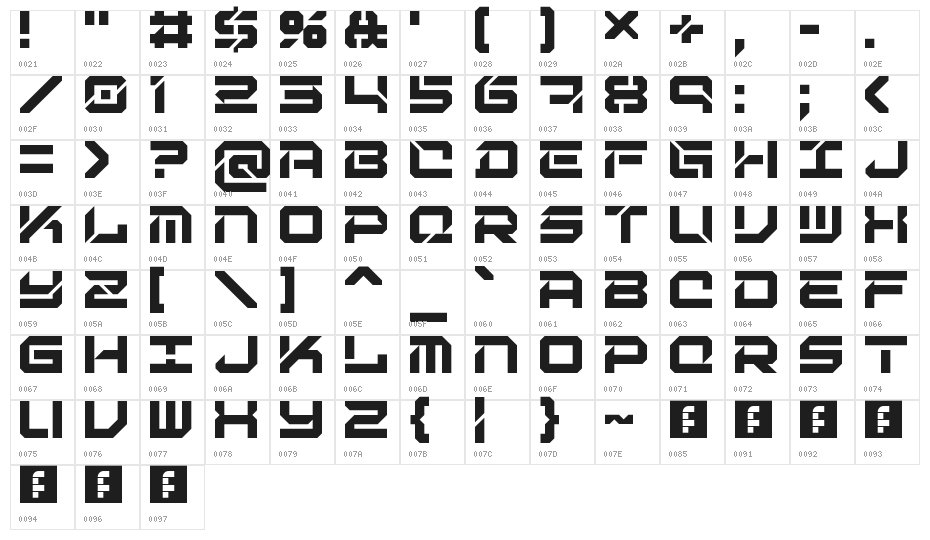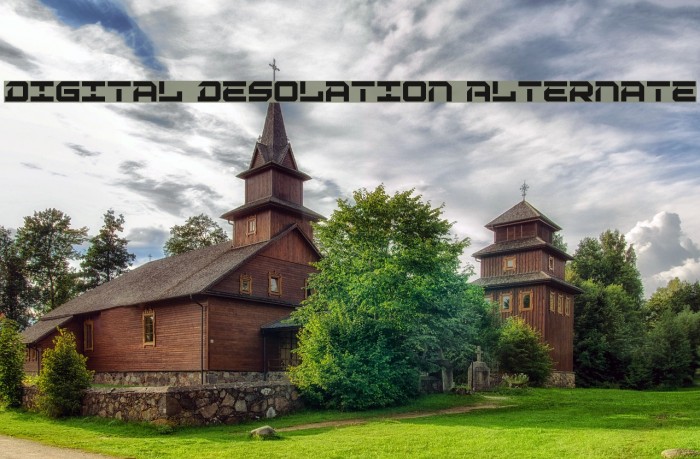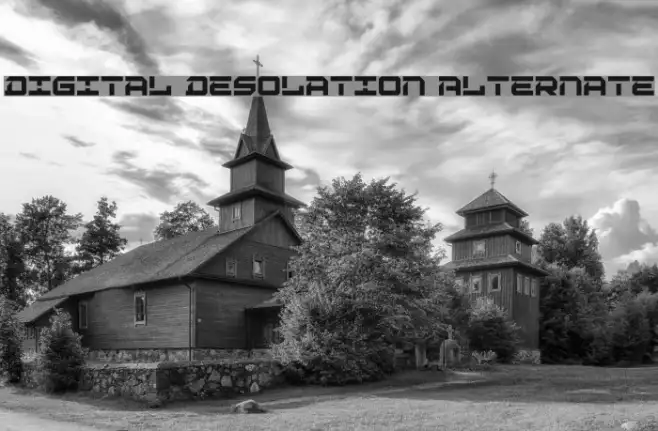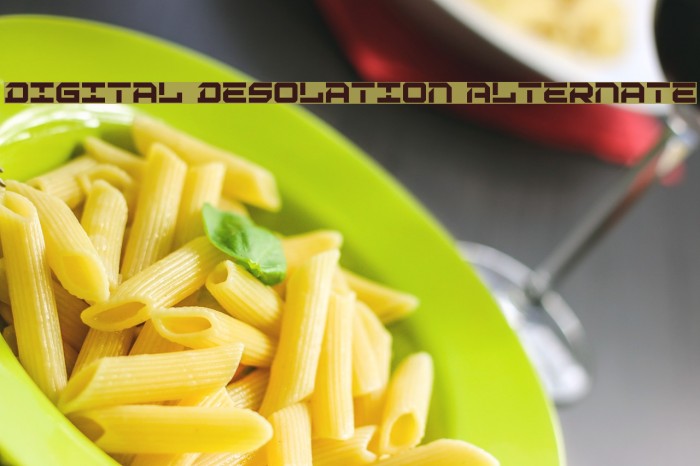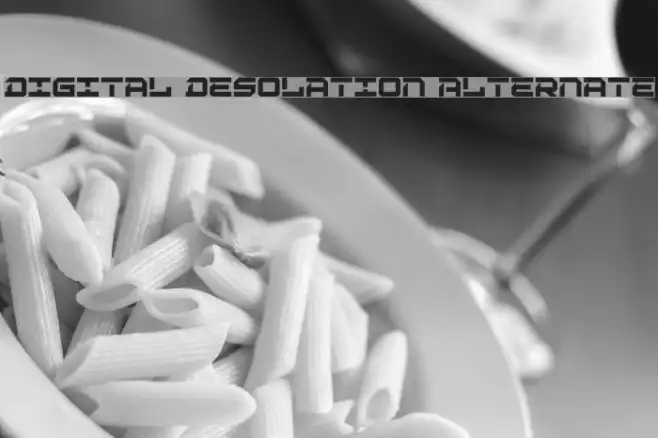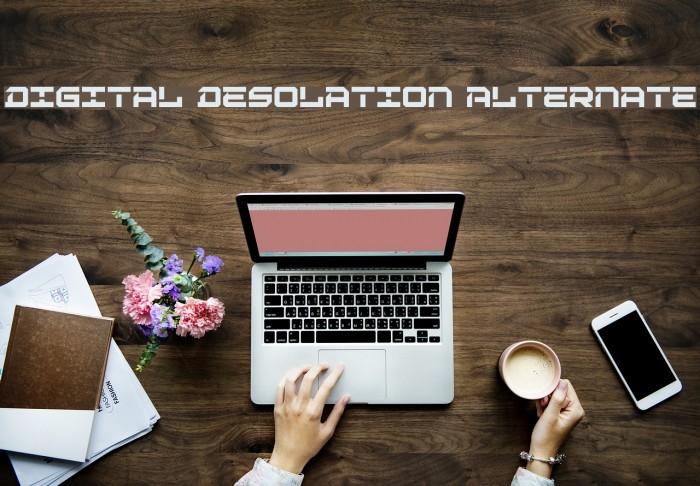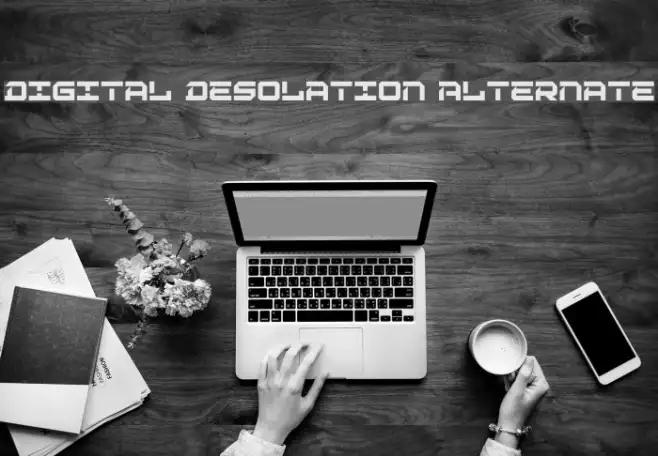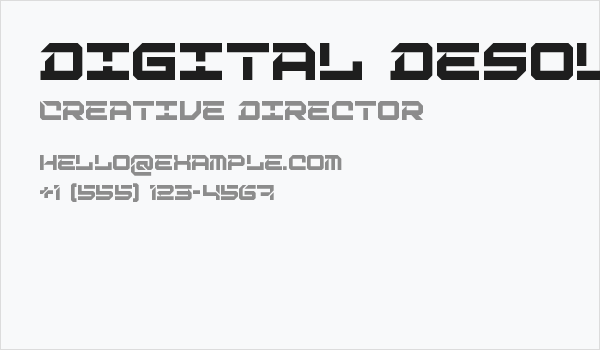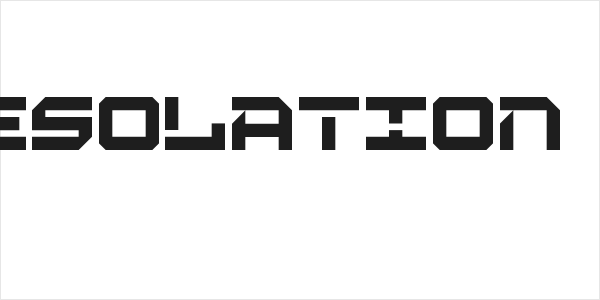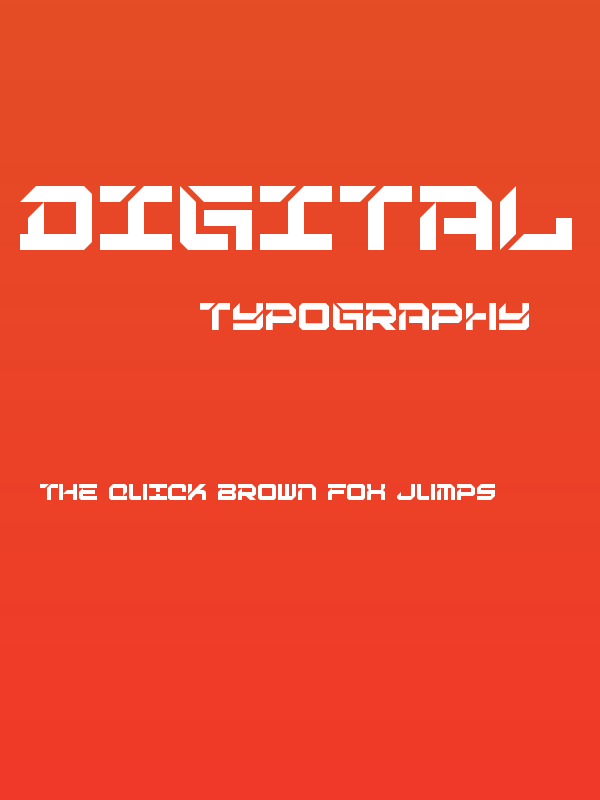
Digital Desolation Alternate Font
Digital Desolation Alternate Description
This font features a bold, futuristic design with sharp angles and geometric shapes. The characters are constructed with a consistent thickness, giving it a uniform appearance. The style is reminiscent of digital or sci-fi themes, with a modern edge that makes it stand out. Each letter and number is distinct, with unique cuts and angles that create a sense of movement and energy. The special characters maintain the same bold and angular aesthetic, ensuring a cohesive look across all glyphs.
| Proposed Projects | Ideal for sci-fi themed projects, video game titles, tech branding, and futuristic posters. |